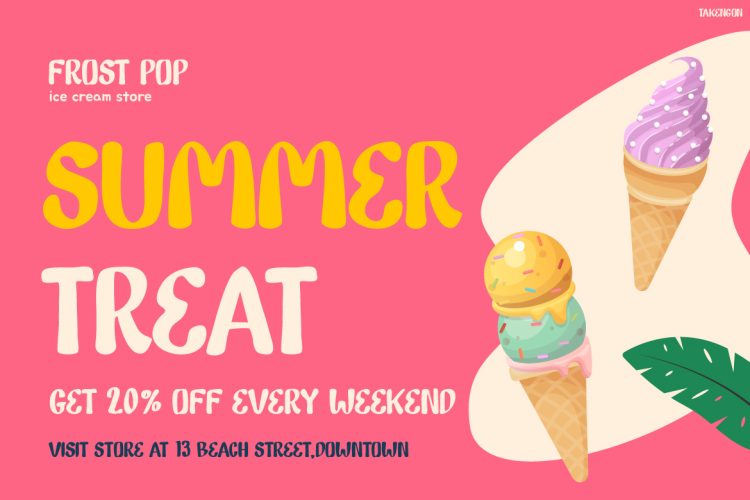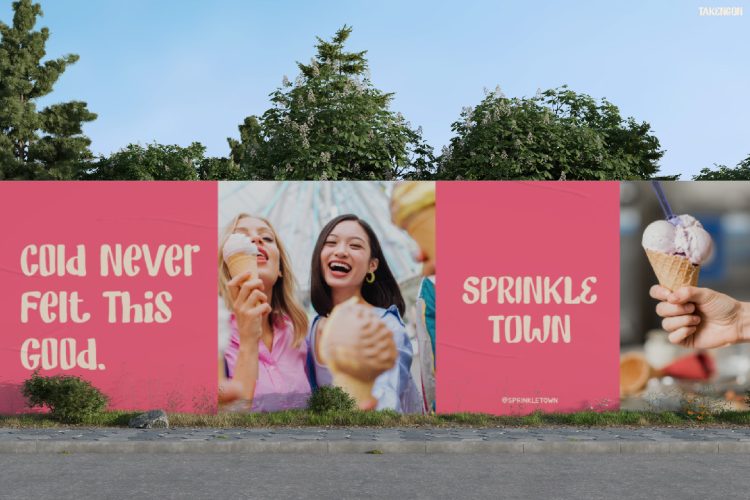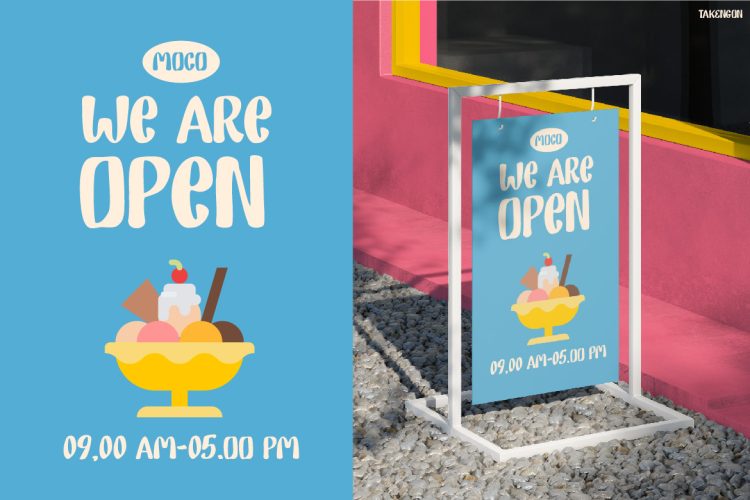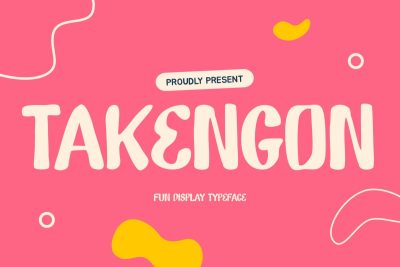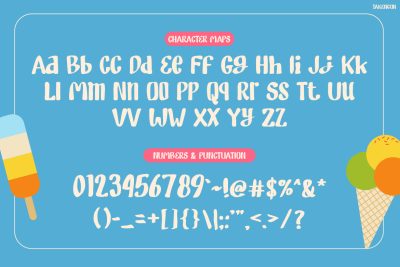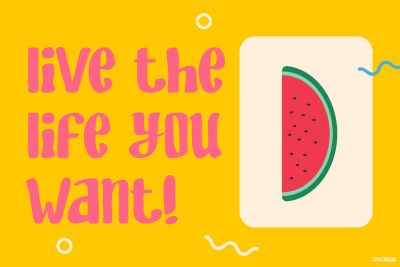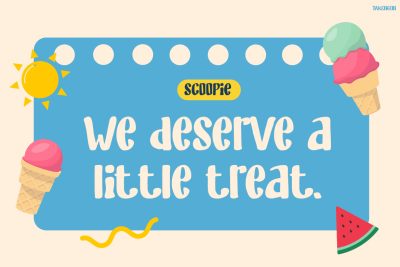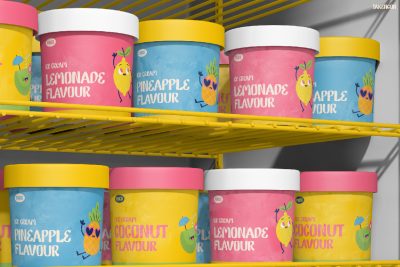
Kids Font Takengon – Sweet Energy for Happy Designs
Kids Font Takengon bursts with playful charm and cheerful personality, making it an instant attention-grabber for joyful and colorful designs. From the very first glance, this font delivers a fun handwritten style with rounded shapes, bouncy letterforms, and friendly proportions. As a result, every word feels warm, approachable, and full of positive energy. Moreover, its lively strokes and soft curves create a visual rhythm that feels natural and expressive, perfectly matching kid-focused themes and sweet summer vibes. Because of its clear readability and bold presence, Kids Font Takengon works beautifully across both digital and print media. Whether you design posters, packaging, or social media visuals, this font helps messages feel exciting, youthful, and easy to enjoy.
At the same time, Kids Font Takengon stands out through its versatility. While it looks playful, it still maintains balance and structure, so your layouts remain clean and professional. In addition, the font supports strong visual storytelling, making short phrases, headlines, and promotional messages feel alive. Therefore, it is ideal for designs that aim to spark happiness, curiosity, and emotional connection at first sight.
Takengon is designed to celebrate joy, creativity, and imagination. It combines cute handwritten aesthetics with bold letter weight, allowing your text to stand out without losing its friendly tone. Furthermore, the font pairs perfectly with bright colors, fun illustrations, and playful layouts. This makes it especially effective for summer promotions, ice cream branding, kids events, and cheerful retail displays. Because each character feels consistent yet expressive, designers can create eye-catching compositions quickly and confidently. In short, this font helps transform simple words into delightful visual moments.
Who Is It For?
Kids Font Takengon is perfect for childrenโs brands, dessert shops, ice cream stores, toy packaging, and educational content. Additionally, it suits graphic designers, social media creators, teachers, and small business owners who want their visuals to feel friendly and inviting. If you create posters, menus, signage, stickers, or Instagram content aimed at families and kids, this font will support your message clearly and attractively.